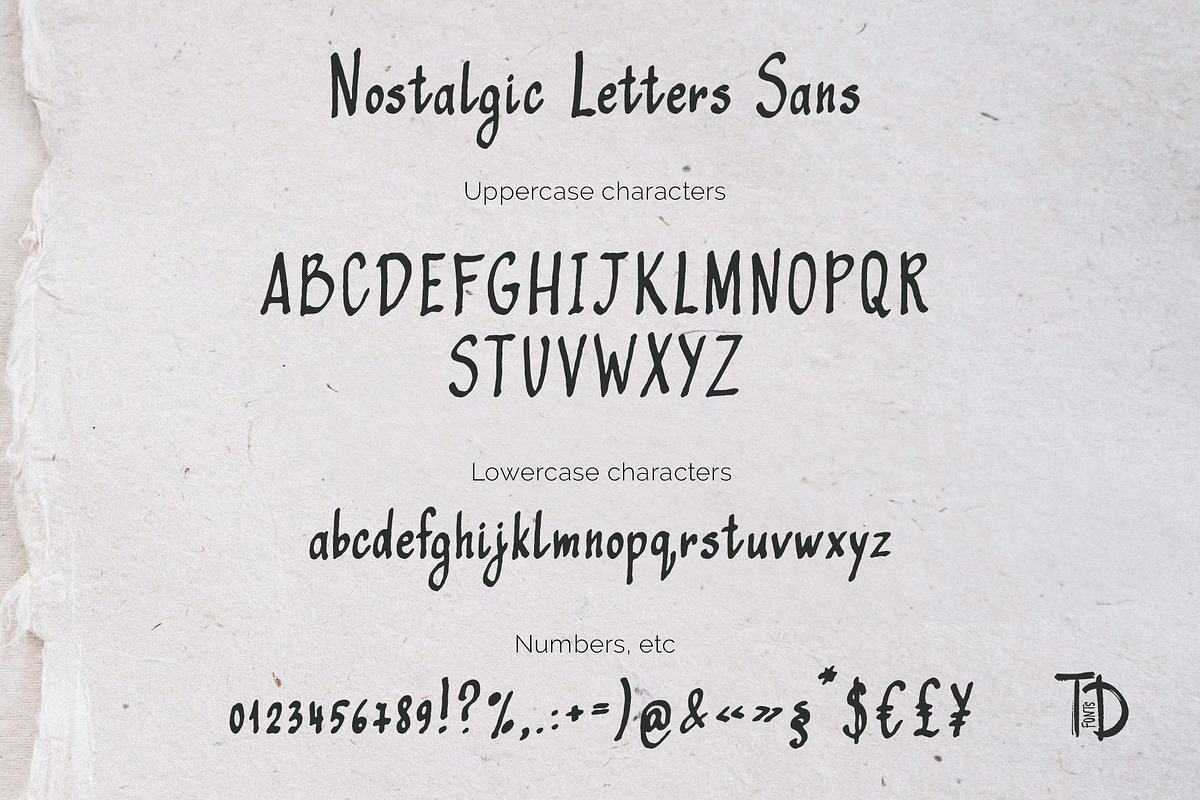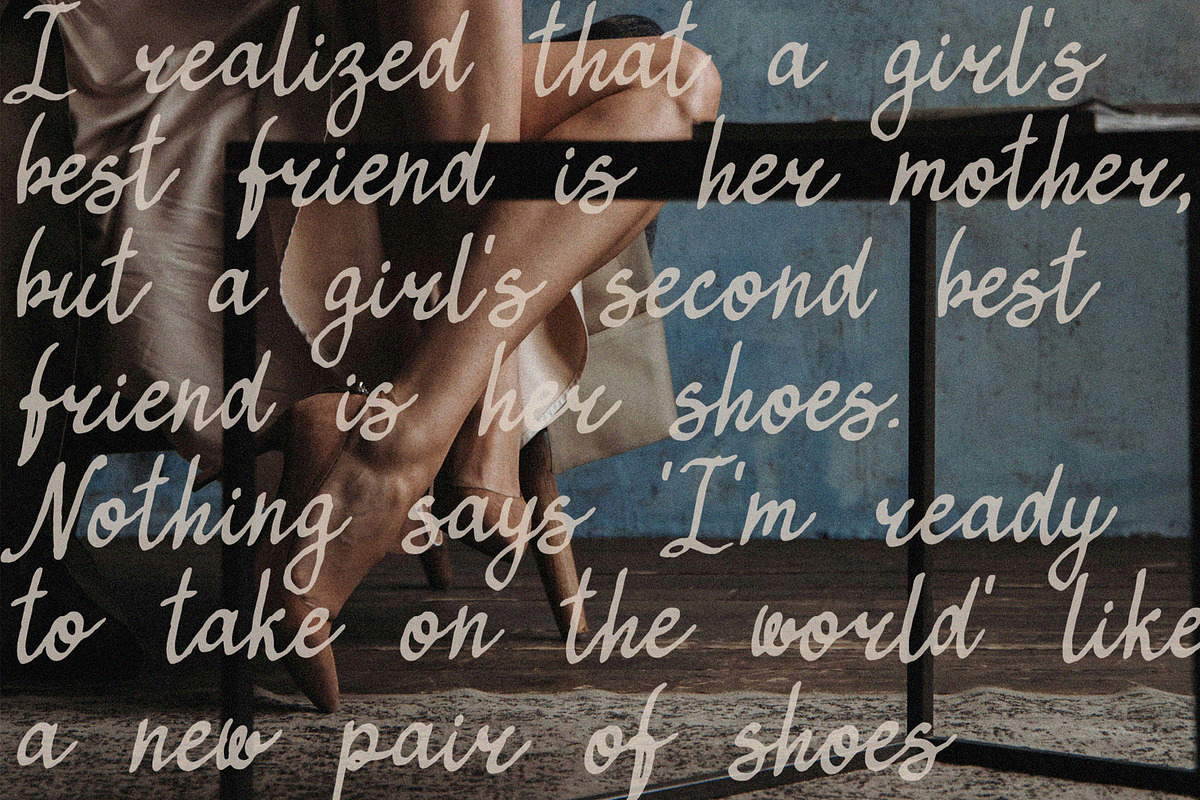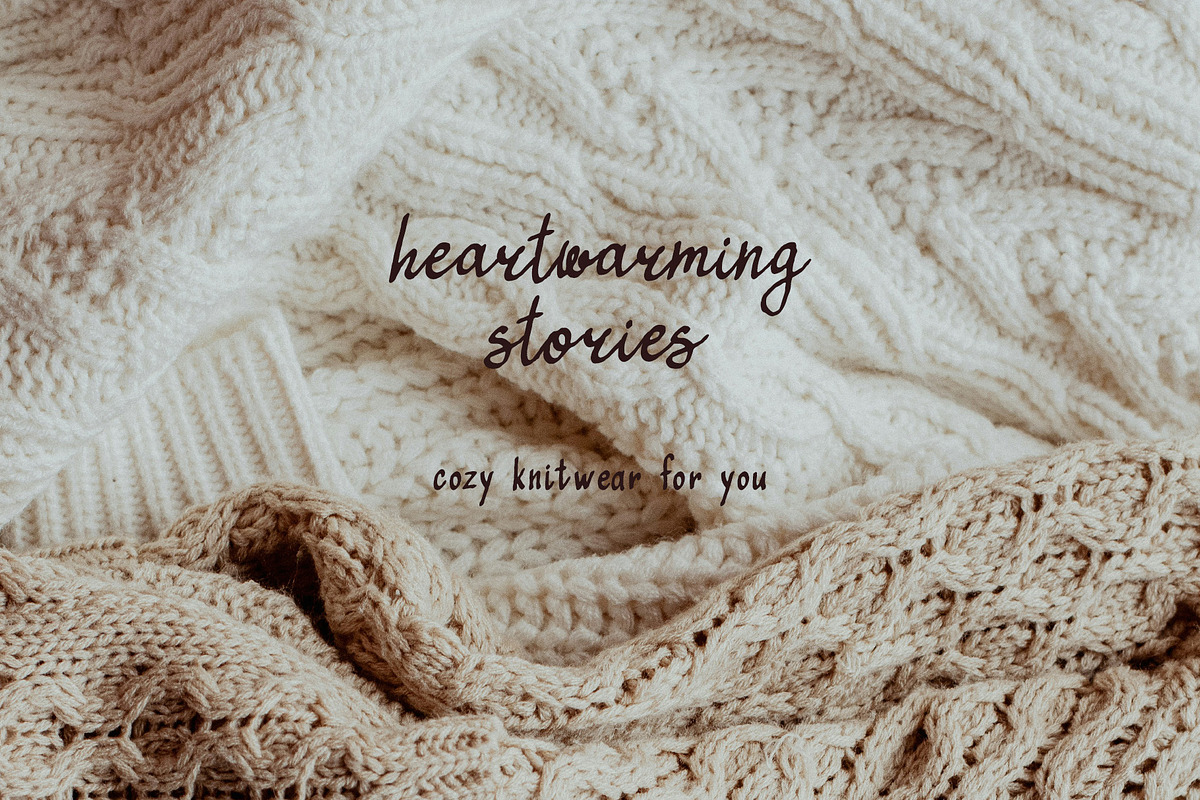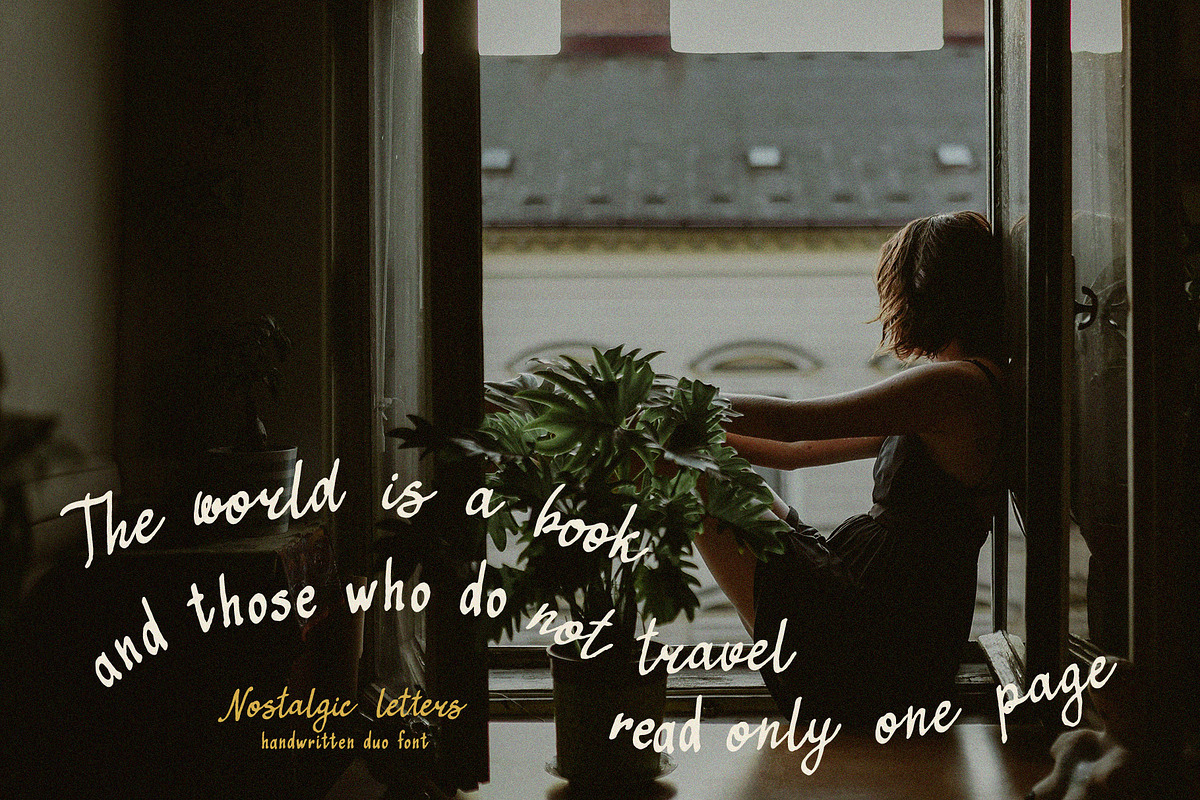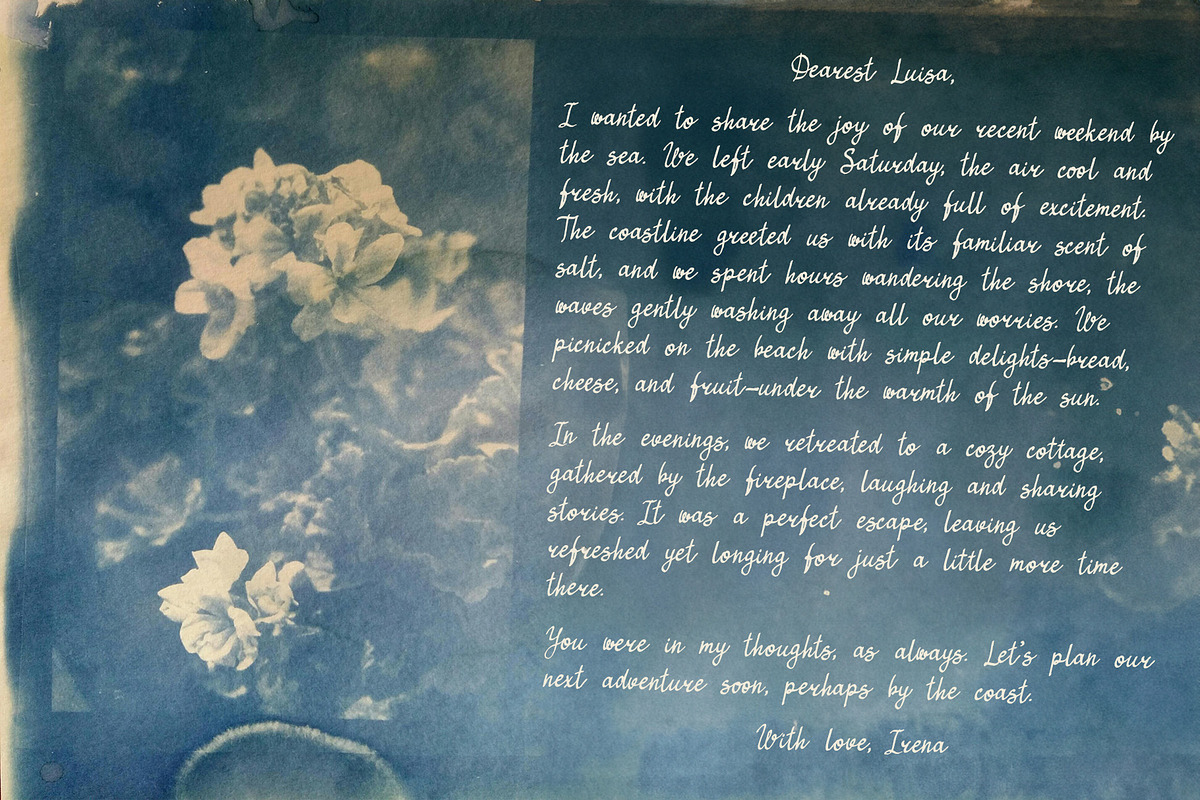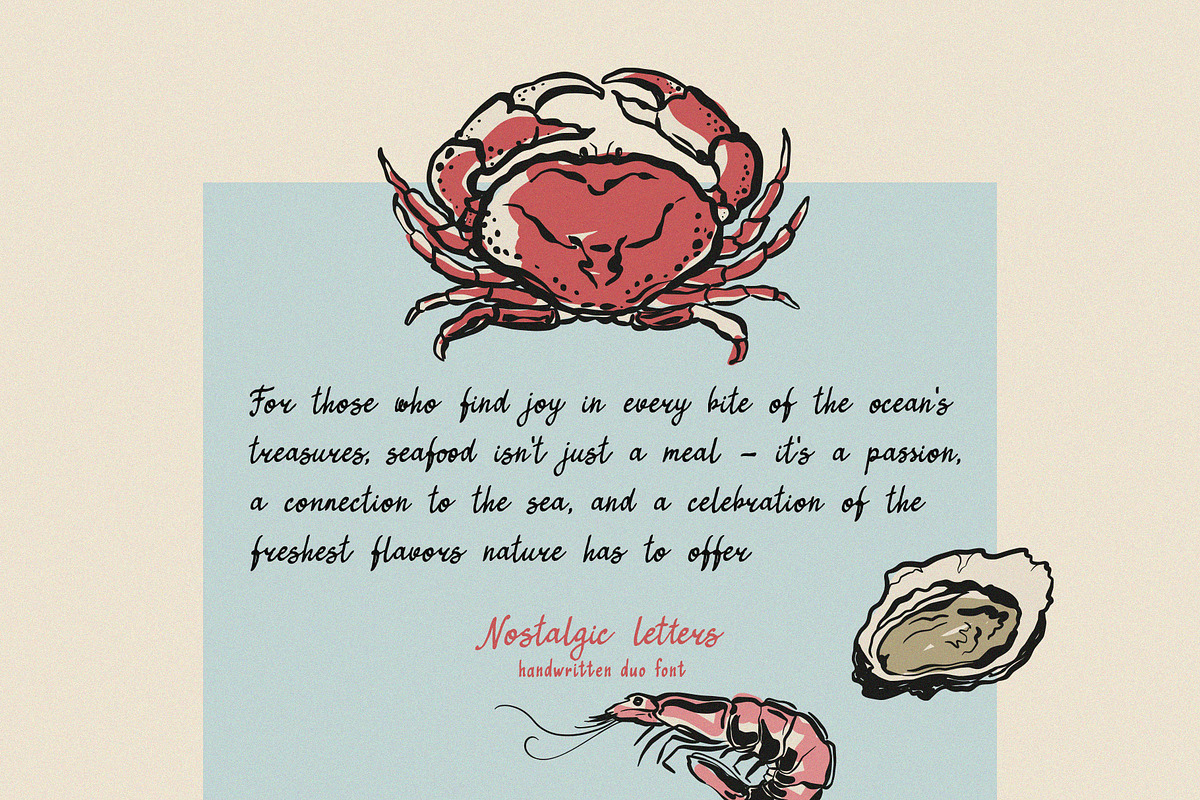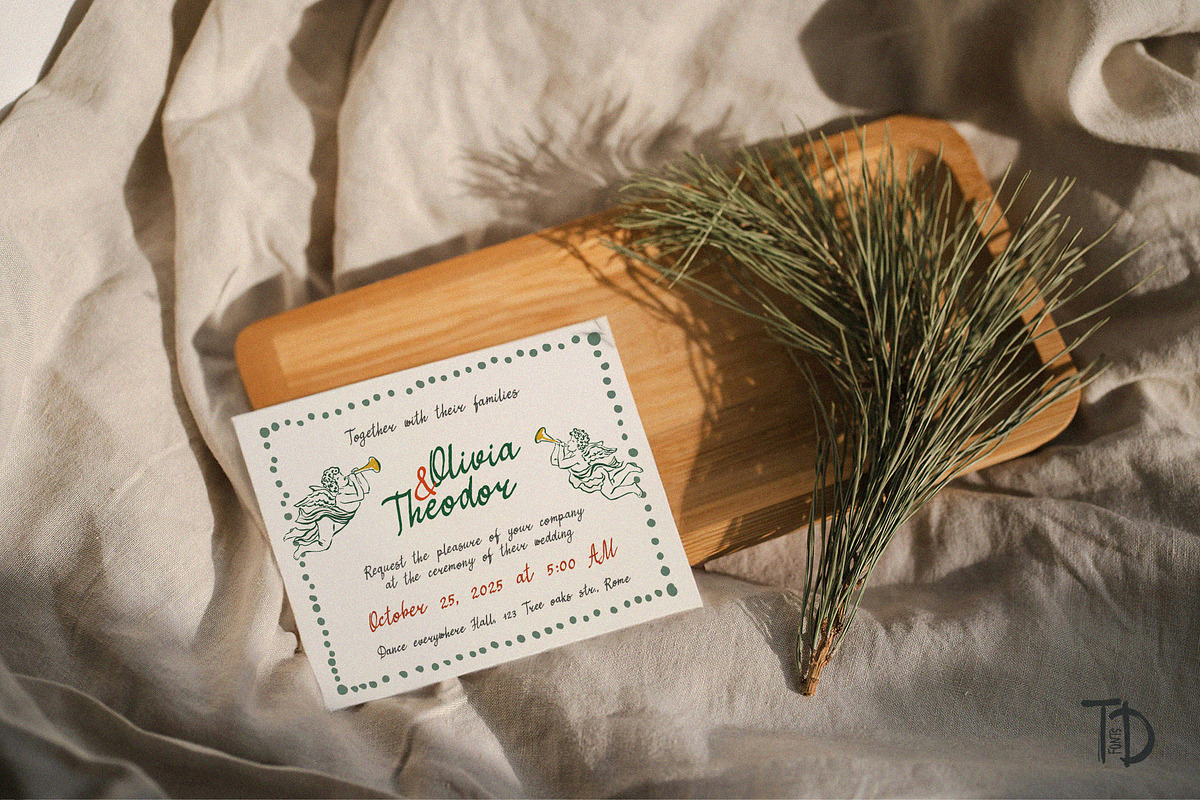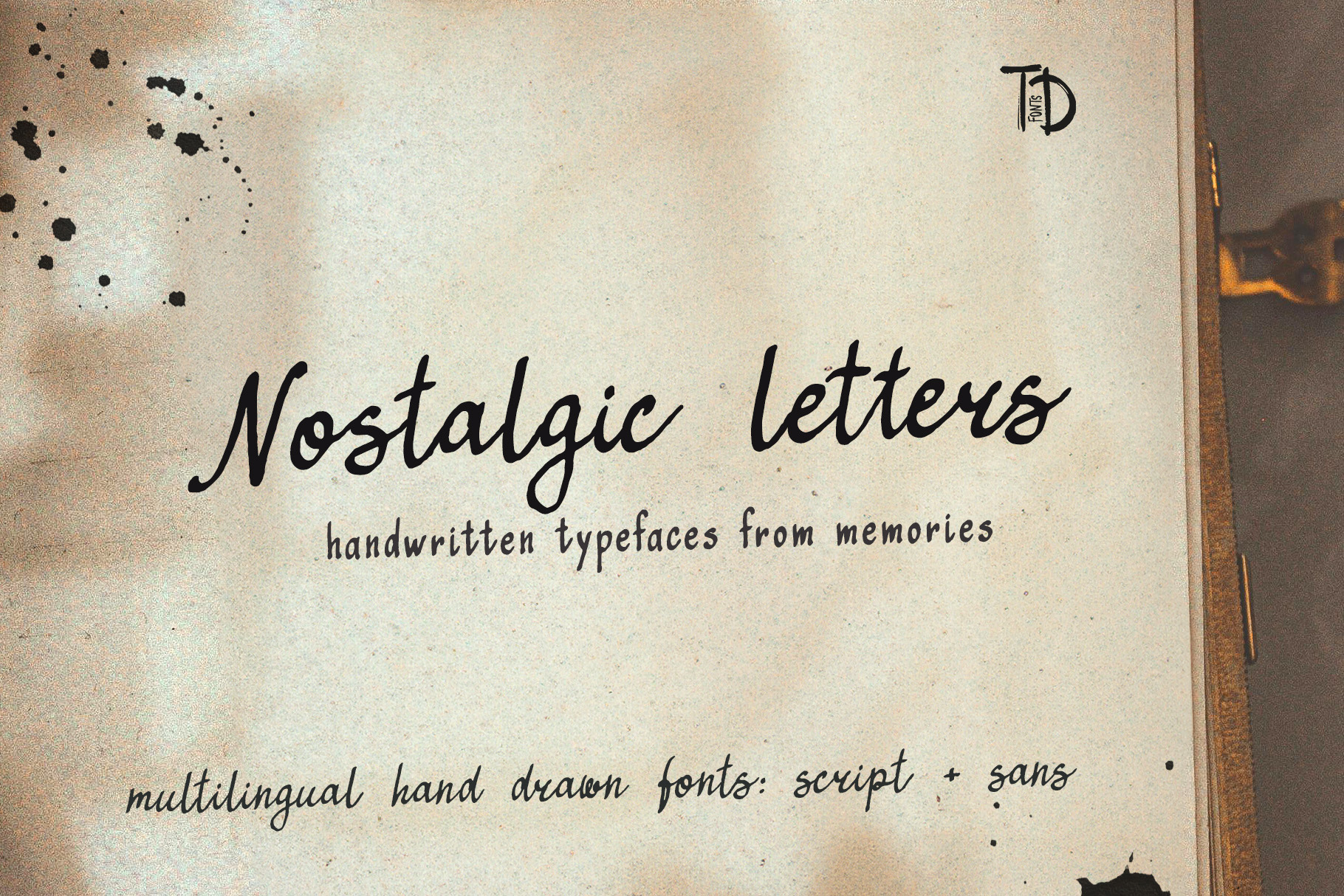
Nostalgic letters retro script font
Nostalgic Letters is a retro handwritten font duo — a script and a sans — designed for projects that embrace the organic feel of hand-drawn type and a quietly vintage aesthetic. Two fonts, made for each other, ready to build a complete typographic world together.
It feels like opening an old book and finding someone's handwriting in the margins — thoughtful, slightly worn, full of quiet character. A French cheese shop sign written with a steady pen. A love quote on a photograph taken years ago. A seafood restaurant menu that feels like it's been there forever, in the best possible way. These are fonts that carry memory without being sentimental, and warmth without being soft.
The script font is written with a flat nib calligraphy pen on paper and carefully vectorized — carrying the characteristic stroke contrast of broad-edge calligraphy, where horizontal strokes spread wide and vertical strokes stay lean, with charmingly imperfect letterforms that feel genuinely hand-crafted. The sans complements it perfectly — hand-drawn, upright, slightly quirky, with the feel of a caption written in a vintage field journal. Use them together for instant typographic harmony, or let each one carry a design on its own.
Logo design & brand identity with a retro, handcrafted character
Product packaging with vintage or artisan aesthetic
Movie posters, art prints & editorial design
Restaurant and food brand menus, labels & signage
Greeting cards, wedding invitations & celebration stationery
Quotes, social media graphics & lifestyle content
Websites & digital design with a warm, nostalgic personality
Any project that needs whimsical, magical handwritten lettering
Font features:
Script font: flat nib calligraphy pen, vectorized from paper — classic broad-edge stroke contrast with charmingly imperfect, slightly vintage letterforms
Sans font: hand-drawn upright companion with quirky character — ideal for body text, captions and subheadings
Two fonts designed as a duo — harmonious together, strong individually
Slightly vintage, charmingly irregular quality throughout both fonts
**The aesthetic: **Nostalgic Letters feels like a logotype on a brasserie window, a title card in an indie film, a quote on a print that makes a room feel like someone actually lives in it. It's the right font duo when a design needs to feel rooted, human, and quietly unforgettable — not trendy, but timeless. The kind of type people recognize as beautiful before they know why.